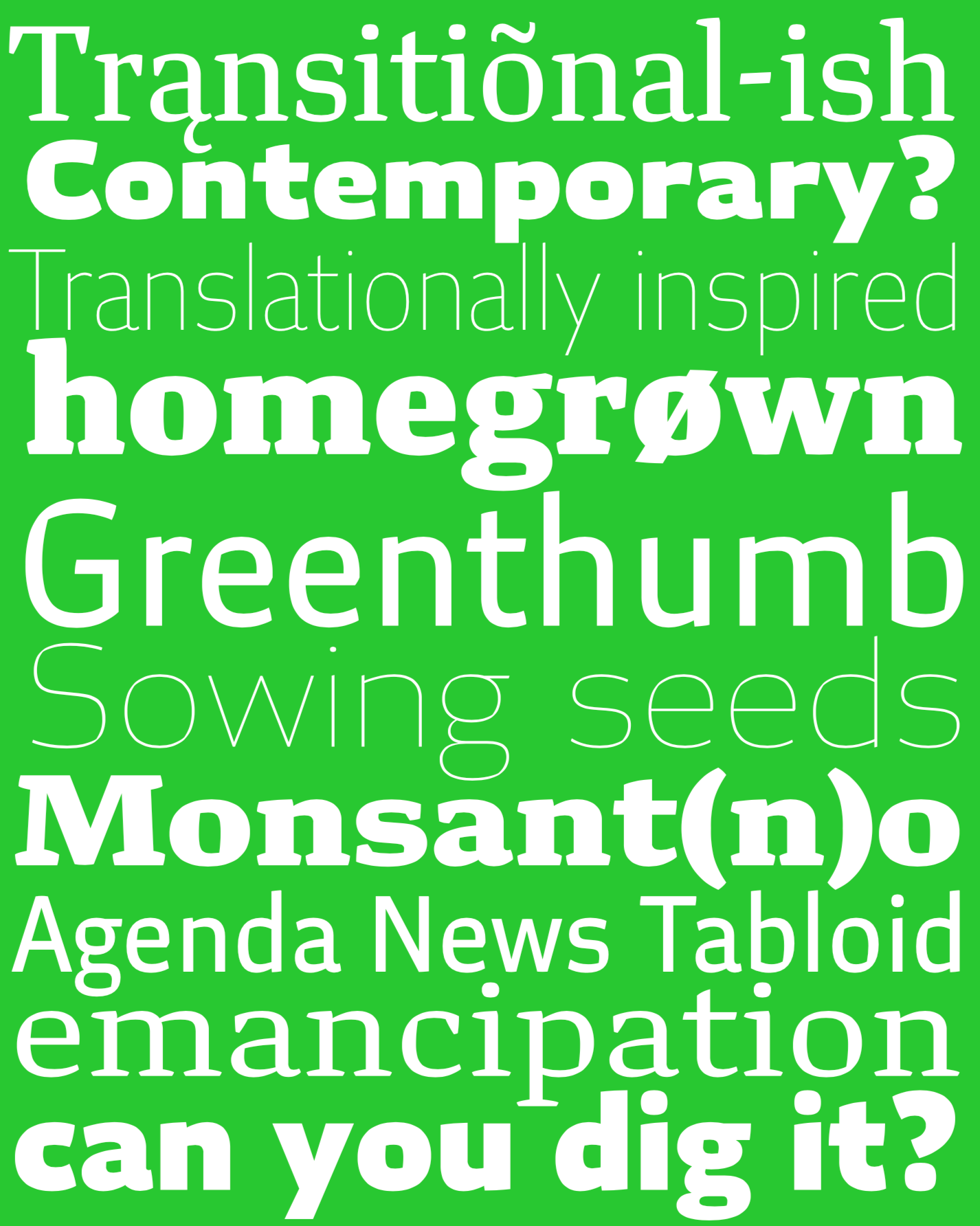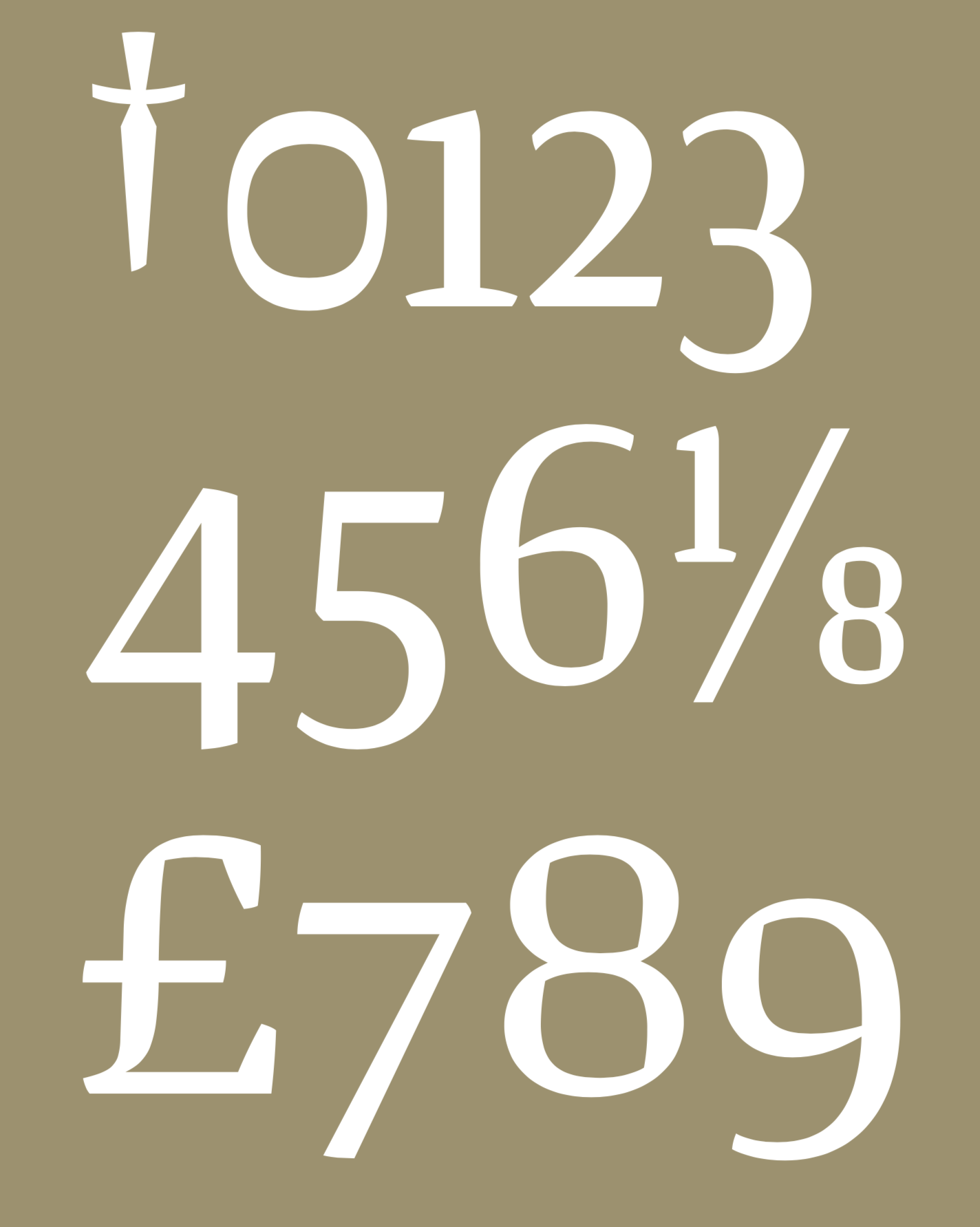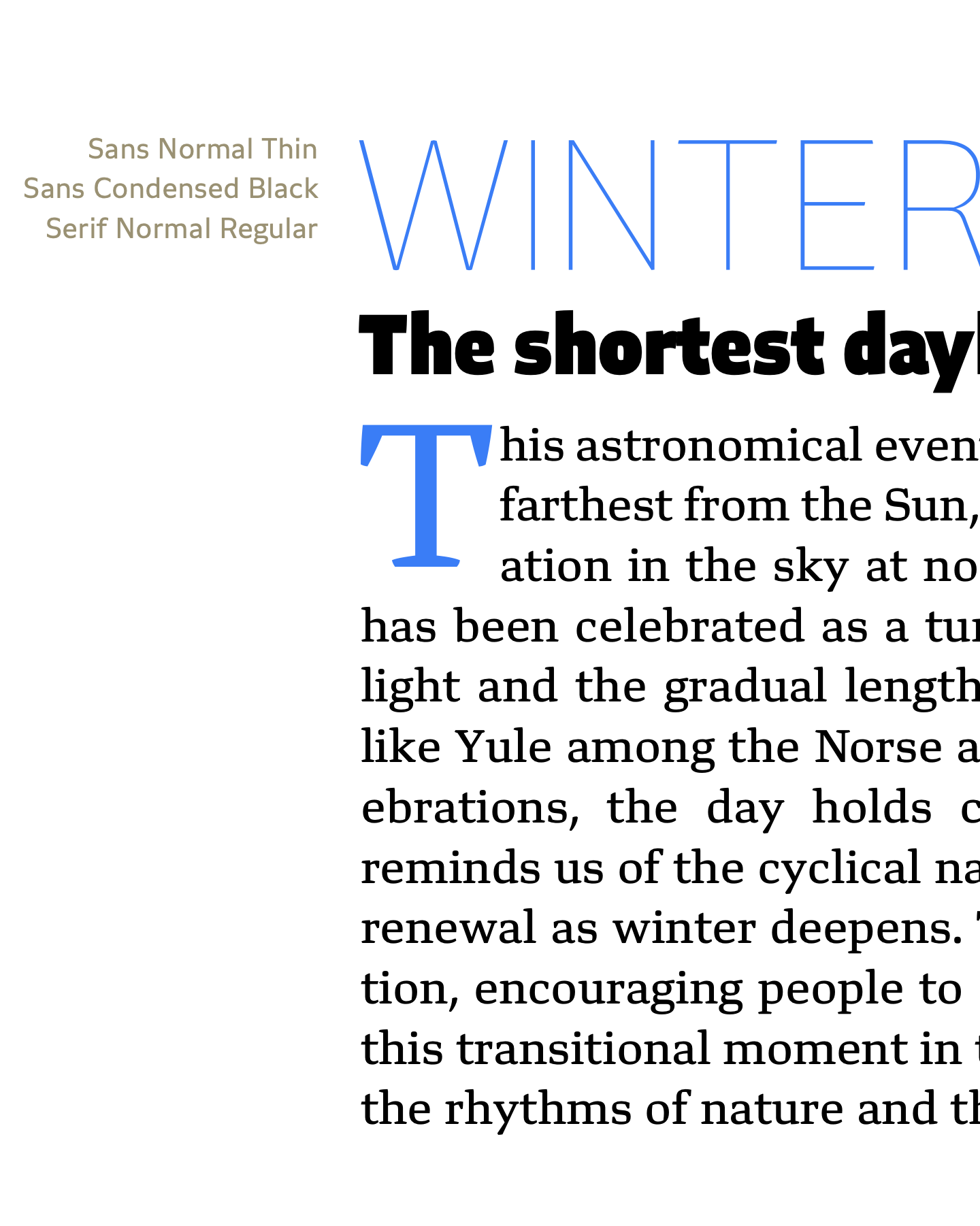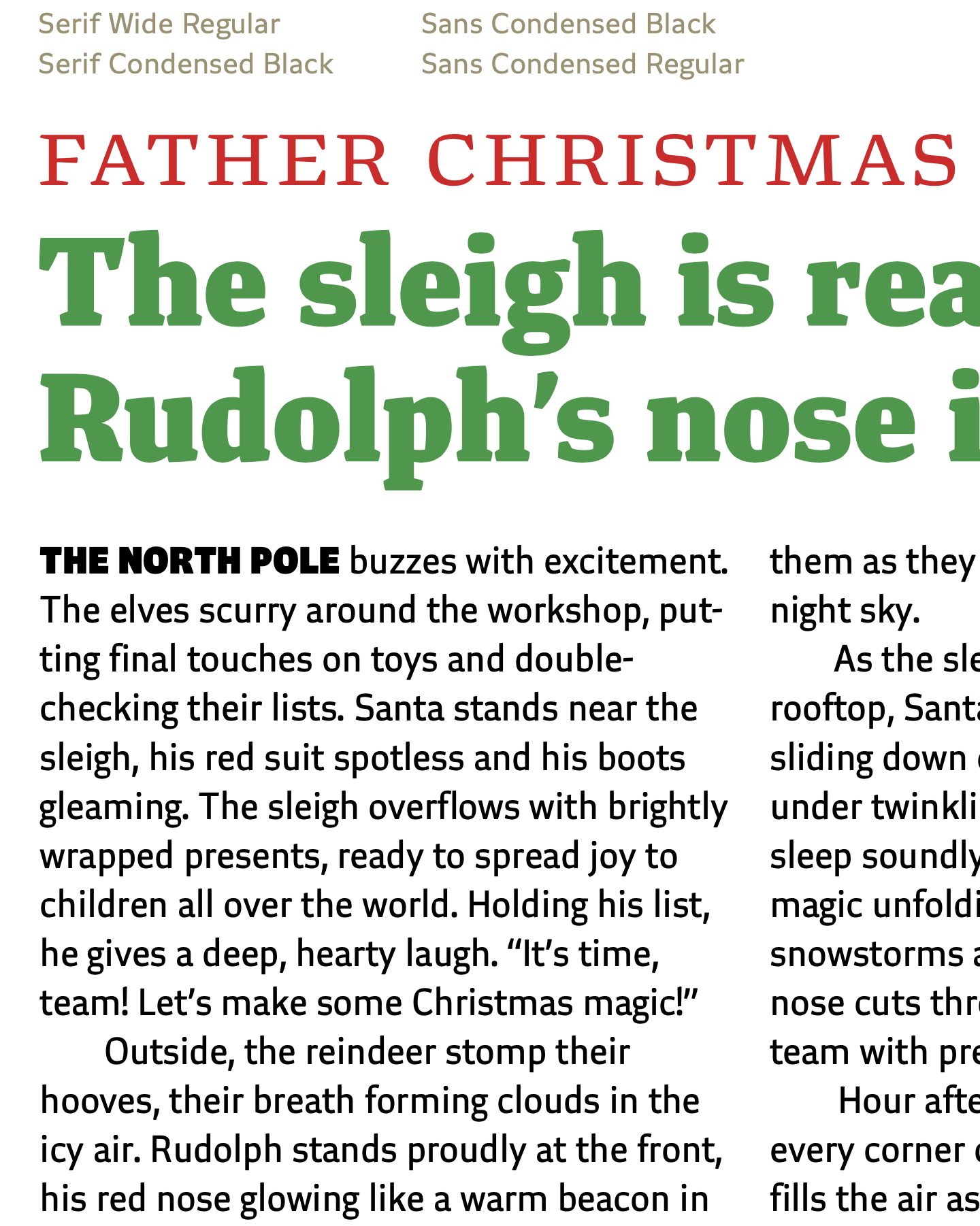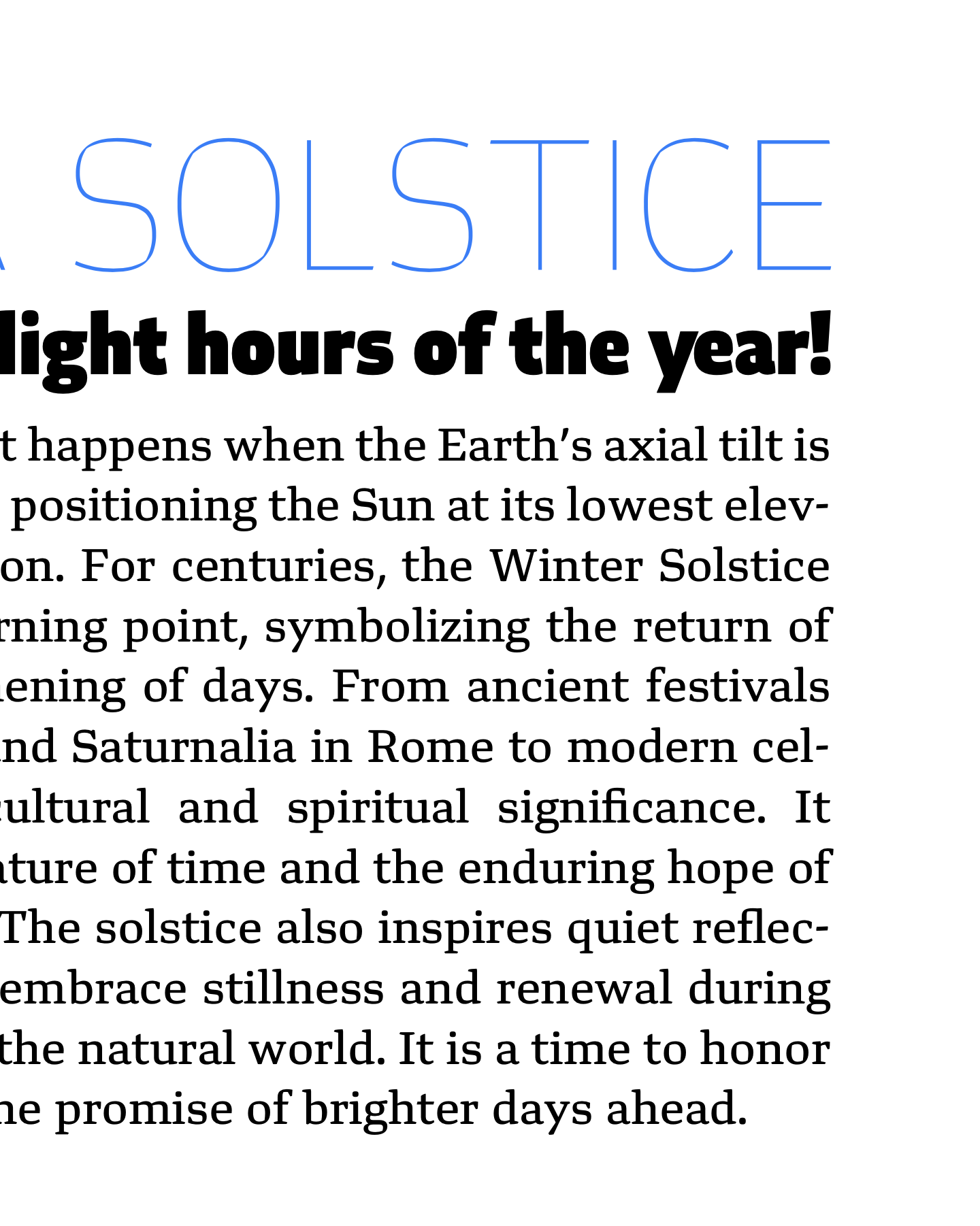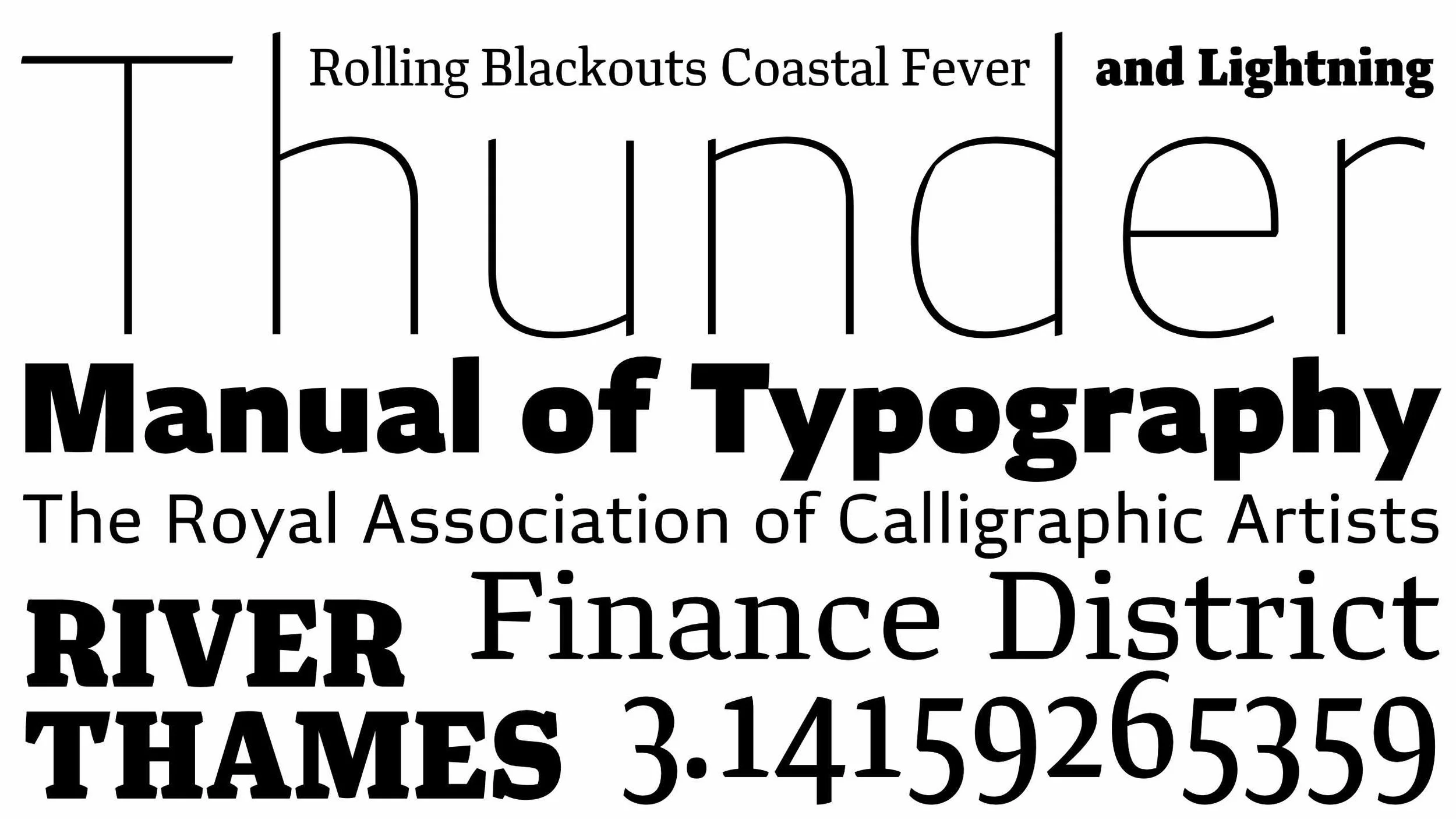
Built to be your workhorse
Arnold consists of two styles, sans and serif, and three widths, condensed, normal, and wide. The skeleton is neutral but a varnish of humanist details provide a warmer personality. Ideal for a brand, editorial, or anyone who has a message that needs to be delivered in a variety of ways but in the same tone.